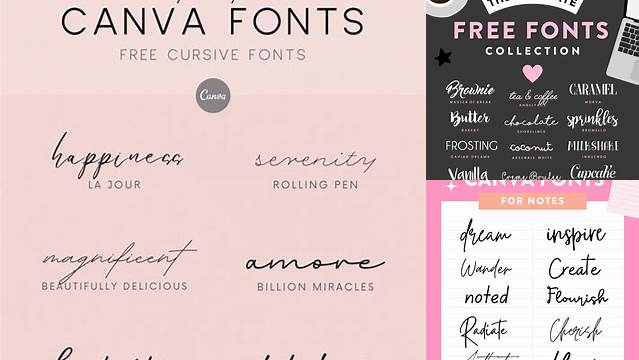
Free Cursive Fonts: Download & Style Your Designs
Cursive Fonts: Your Ultimate Guide to Free Downloads and Stylish Typography
Hey guys, are you looking to jazz up your projects with some elegant flair? Well, look no further! This comprehensive guide is your one-stop shop for everything related to cursive fonts, including where to download them for free. We'll dive into the world of these beautiful fonts, exploring their uses, and providing you with a treasure trove of resources to get started. So, whether you're a graphic designer, a blogger, or just someone who loves cool fonts, get ready to unleash your creativity with the charm of cursive.
Why Cursive Fonts? The Allure of Elegance and Personality
Cursive fonts, with their flowing, handwritten appearance, bring a touch of elegance, sophistication, and personality to any design. Unlike their rigid, often sterile, counterparts, cursive fonts evoke a sense of warmth, intimacy, and artistry. Think of wedding invitations, elegant logos, or even a simple handwritten note – the use of a cursive font instantly elevates the aesthetic. But why do they hold such appeal? The answer lies in their inherent human touch. In a digital world, where everything can feel mass-produced, cursive fonts offer a refreshing dose of individuality. They mimic the natural flow of handwriting, making them feel more personal and relatable. These fonts can also inject a sense of creativity, making them incredibly versatile. This versatility means they can work well in both digital and print media, making them a valuable resource in any creative toolkit. So, whether you're designing a website, crafting a social media post, or working on a print project, the right cursive font can make a big difference.
Moreover, cursive fonts come in a variety of styles, each with its unique character. From the classic elegance of scripts to the more playful and modern interpretations, there's a cursive font to suit every project's needs. Some fonts are perfect for formal occasions, while others are more suited for casual, lighthearted designs. This diversity allows designers to find the perfect match, enhancing the overall message and aesthetic. Think of the graceful loops of a calligraphy-inspired font on a wedding invitation or the whimsical strokes of a modern script on a greeting card. The possibilities are endless! Furthermore, the use of cursive fonts can help to set the tone and create a strong visual identity. By choosing a font that aligns with the brand's personality, designers can convey a consistent message. This consistency reinforces brand recognition and establishes a cohesive visual language. The choice of a cursive font can, therefore, have a significant impact on how a brand is perceived.
In addition to their aesthetic appeal, cursive fonts can also be used to improve readability in specific contexts. While they may not be ideal for large blocks of text, they can be used effectively in headlines, titles, and short passages. In these cases, a cursive font can draw the reader's attention and create visual interest, making the design more engaging. The contrast between the cursive font and other fonts in the design can also add depth and visual hierarchy. So, next time you're working on a project, consider the power of cursive fonts. They can transform your design from ordinary to extraordinary! From the classic elegance of scripts to the more playful and modern interpretations, there's a cursive font to suit every project's needs. Some fonts are perfect for formal occasions, while others are more suited for casual, lighthearted designs.
Where to Find Free Cursive Fonts: Your Download Directory
- BeFonts: BeFonts is another amazing spot. Offers thousands of free fonts to download, including a wide range of cursive fonts. This site also has some great design resources, such as free graphics, templates, and mockups.
- 1001 Free Fonts: As the name suggests, this site has a huge selection of fonts, including many cursive fonts. While the selection is extensive, always double-check the license terms before using a font for your project. Many fonts are for personal use only.
When downloading from these sites, always be sure to check the license. Some fonts are free for personal use only, while others can be used commercially. Make sure the font you choose fits your project's needs.
Tips for Choosing the Perfect Cursive Font
Choosing the right cursive font can make or break your design, so it's important to know what to look for. Here are some tips to help you find the perfect match:
- Consider your project: What are you designing? A wedding invitation requires a different style of font than a website header. Think about the overall tone and message you want to convey.
- Readability: While cursive fonts are beautiful, readability is key. Make sure the font is easy to read, especially in longer blocks of text. Avoid overly elaborate fonts if legibility is a concern.
- Style: Do you want something classic, modern, or whimsical? Cursive fonts come in a variety of styles, from elegant scripts to playful brush fonts. Choose a style that complements your design.
Conclusion: Unleash Your Creativity with Cursive